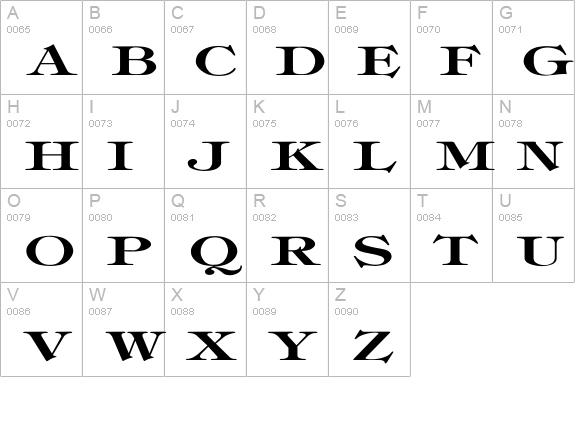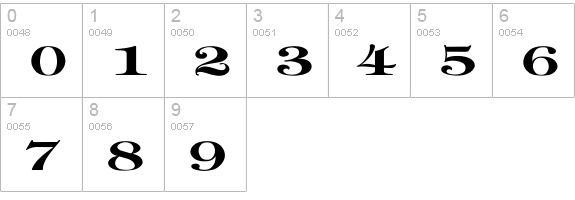
Timpani-Bold Ex is a strong, high-contrast variant in the Timpani typeface family \xE2\x80\x94 well suited to headlines, attention-grabbing titles, and strong calls-to-action.
Timpani-Bold Ex is a remarkable font that exudes strength and elegance in every character. Its bold and commanding presence makes a statement, capturing attention and leaving a lasting impression. With its perfect balance of sharp lines and smooth curves, Timpani-Bold Ex strikes the perfect harmony between power and sophistication. This font is the epitome of versatility, as it seamlessly adapts to various design projects, from corporate branding to editorial layouts, and everything in between. Its bold weight gives it a commanding presence on headlines and titles, while its legibility ensures a pleasant reading experience for body text. What sets Timpani-Bold Ex apart is not only its exceptional design, but also the fact that it is completely free. Yes, you read that right – this incredible font is freely available for download at FontsMarket.com. Now, you can add a touch of elegance and power to your designs without any cost. Whether you are a professional designer or a hobbyist, Timpani-Bold Ex is a must-have in your font collection. Its timeless appeal and versatility make it a reliable choice for any project, while its availability as a free download makes it accessible to all. So why wait? Head over to FontsMarket.com and enhance your designs with the captivating allure of Timpani-Bold Ex.